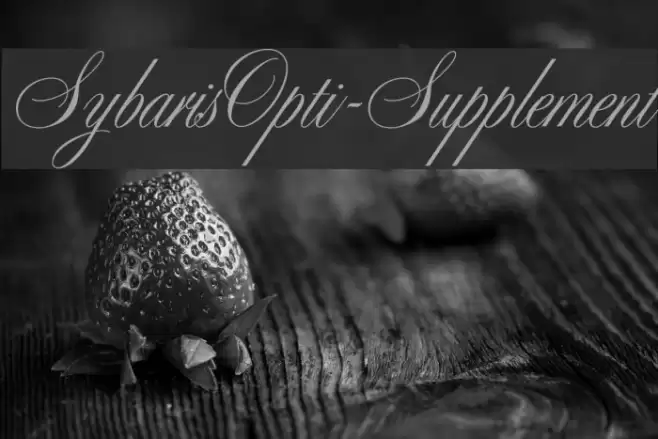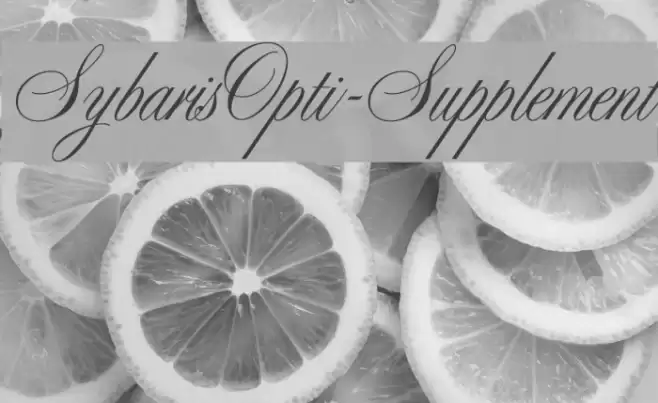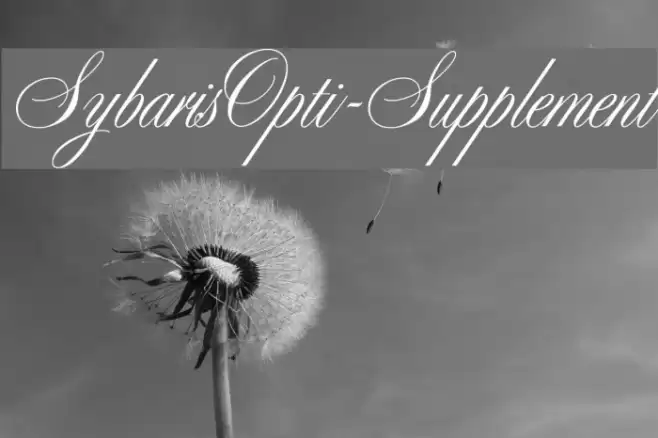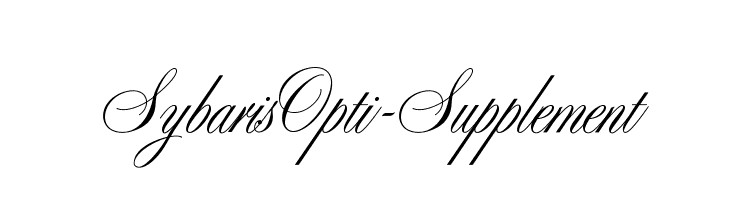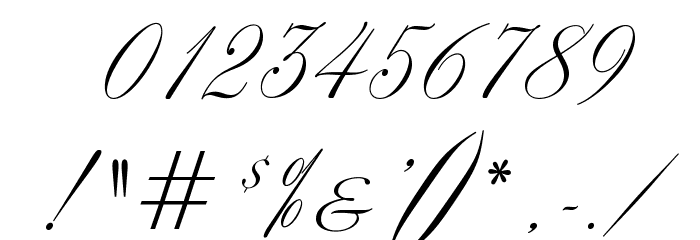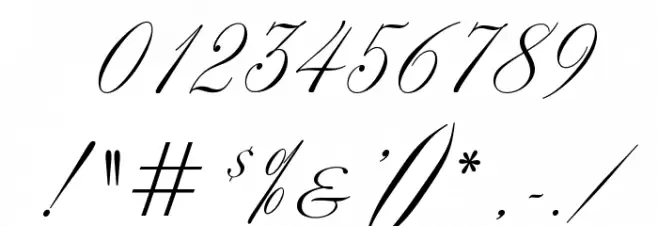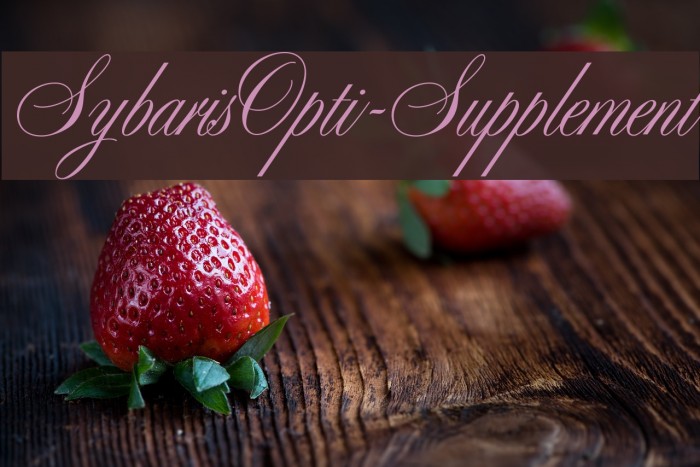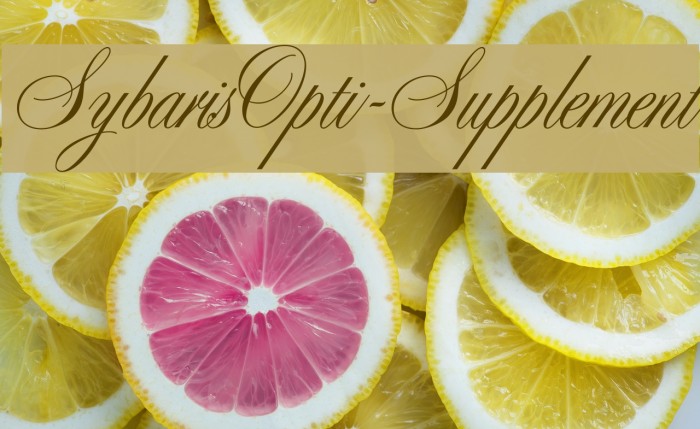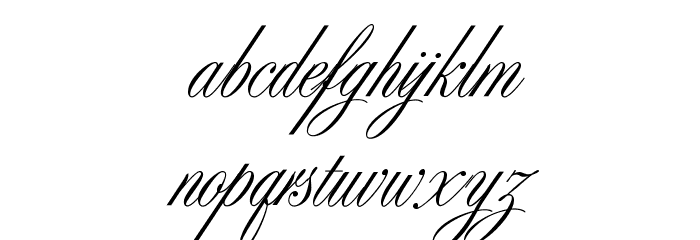
SybarisOpti-Supplement
This elegant script font features a flowing, cursive style with intricate loops and flourishes. The uppercase letters are particularly ornate, with sweeping lines that extend beyond the baseline and cap height, creating a sense of movement and grace. The lowercase letters maintain a consistent slant, enhancing the fluidity of the text. Numbers and special characters are designed with the same attention to detail, ensuring a cohesive look across all glyphs. The font's delicate strokes and high contrast between thick and thin lines give it a sophisticated and luxurious appearance, making it ideal for formal invitations, branding, and decorative purposes.
An elegant script font with flowing, intricate loops and high contrast strokes.
- Proposed Projects: Ideal for wedding invitations, luxury branding, greeting cards, and decorative projects.
- Category: Script
- Contrast: High
- Overall Style: Elegant, Decorative
- Use Case: Invitations, Branding, Decorative